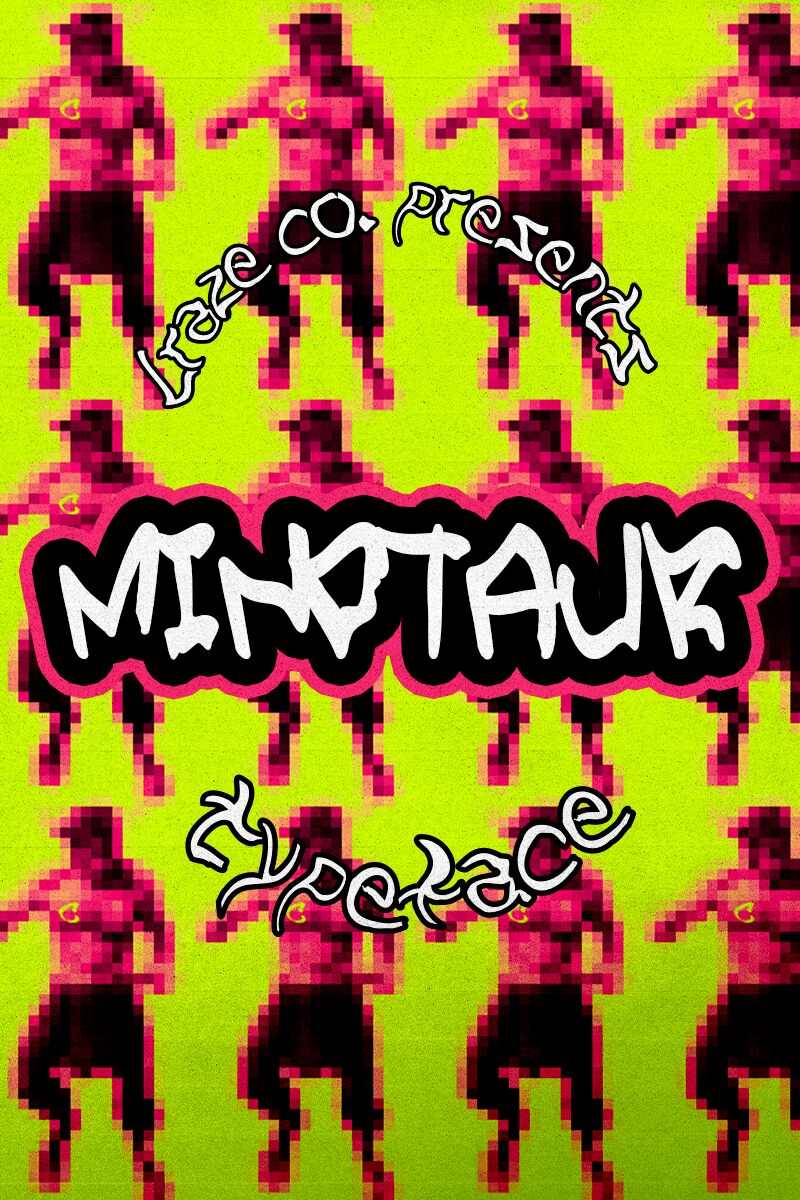
Minotaur font by CrazeCo.com.au captures the boldness and dynamism of graffiti-inspired art and design. Its edgy expression and powerful appearance are crafted by the distinct combination of elements within. This wonderful free font beautifully conveys the energetic feel of street art with modern application to different venues and industries. With the exception of standard white characters, the typeface can easily be decorated for a more colorful look. Minotaur’s upper characters include unconventional designs with creative shapes and contours, and the lower characters channel a traditional look that can still be used to add an eye-catching element to any project.
Use Minotaur with branding needs since both the letter designs and the title itself are memorable, used for logos, packaging designs, signage, shop or restaurant displays, etc. Have some fun using these fonts with headlines, posters, flyers, social media posts, and digital games and applications. If you’re a fan of colorful presentations, this is your lucky day since these designs barely even need any work from the artist himself/herself.